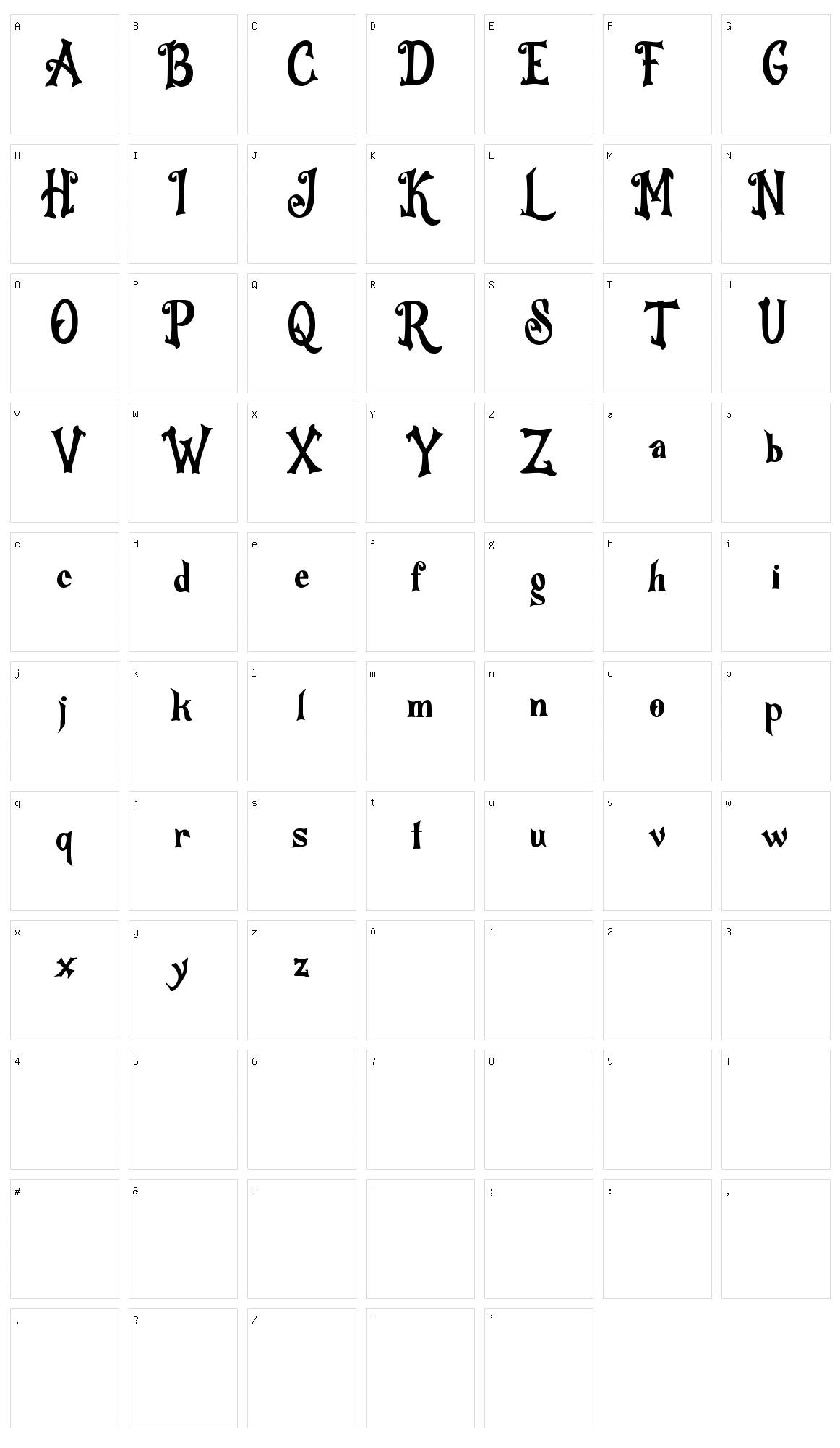
The free font HalloWitchZ is carefully designed by Mozatype, showcasing a thoughtful balance of creativity and usability and falls under the Halloween font style. When you download the ZIP file, it contains only 42.66 KB of font files, making it lightweight and quick to download. Please review the license details below to understand permitted usage and distribution rights. If license information is not available, we recommend using this font for personal projects only or contacting the author directly for commercial usage permissions.